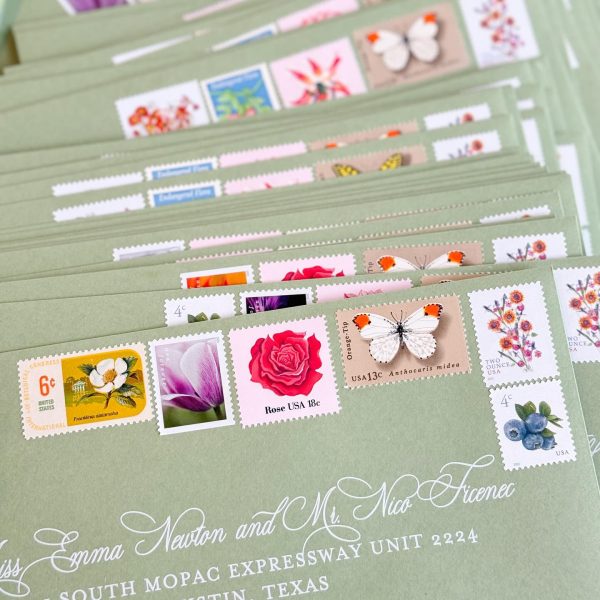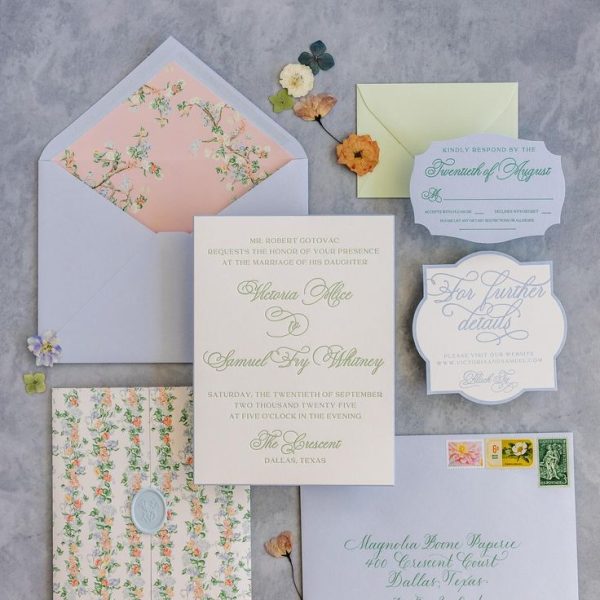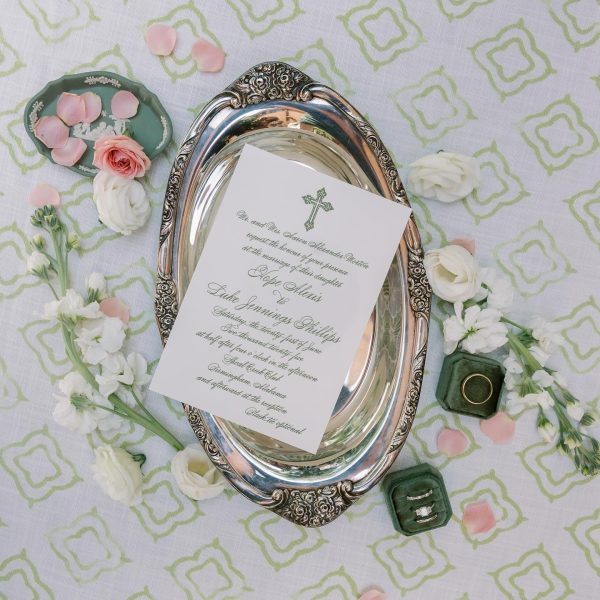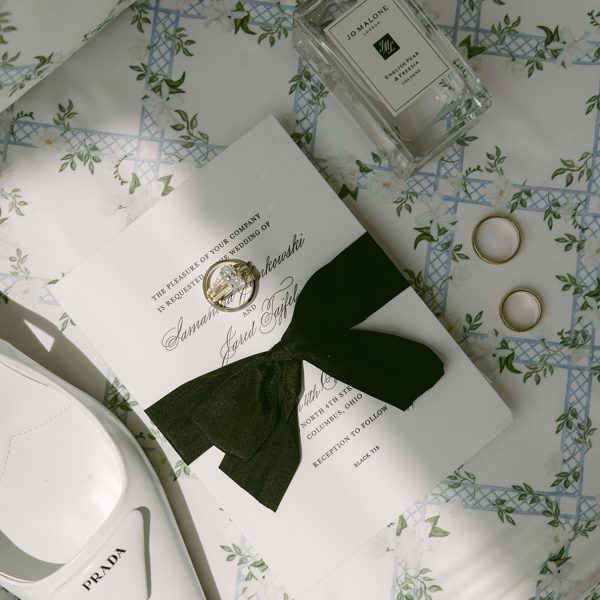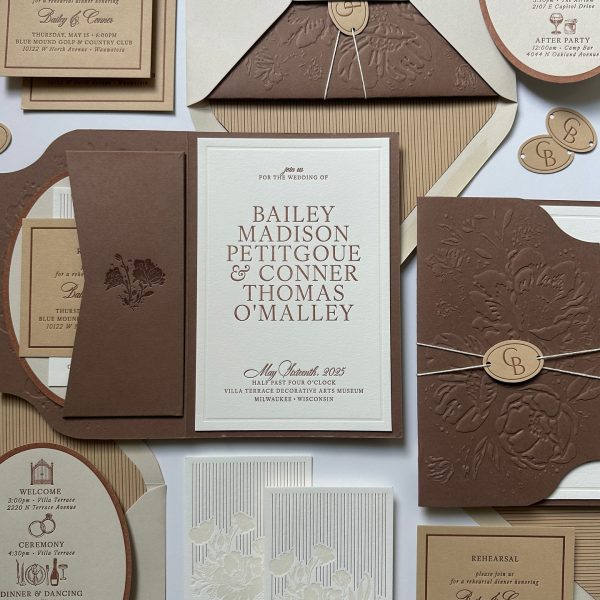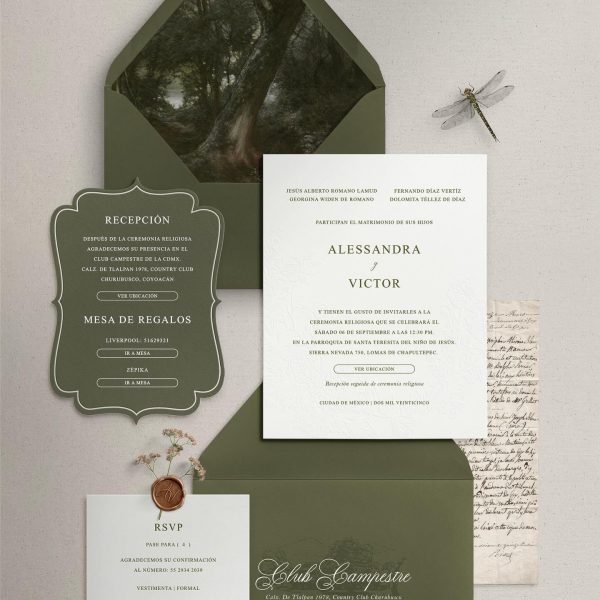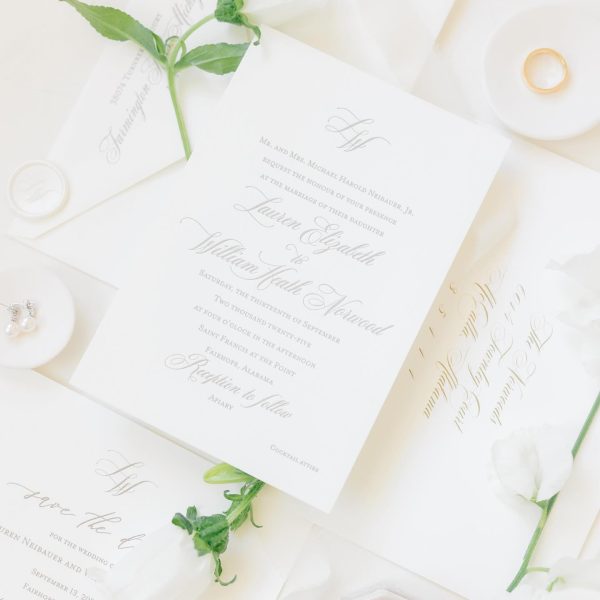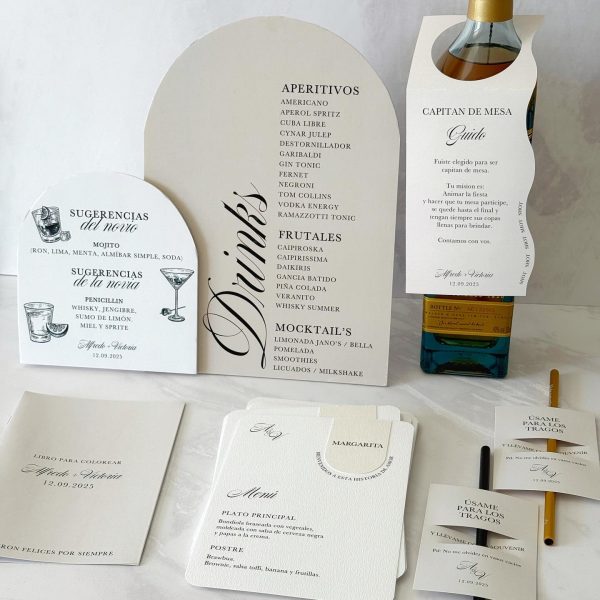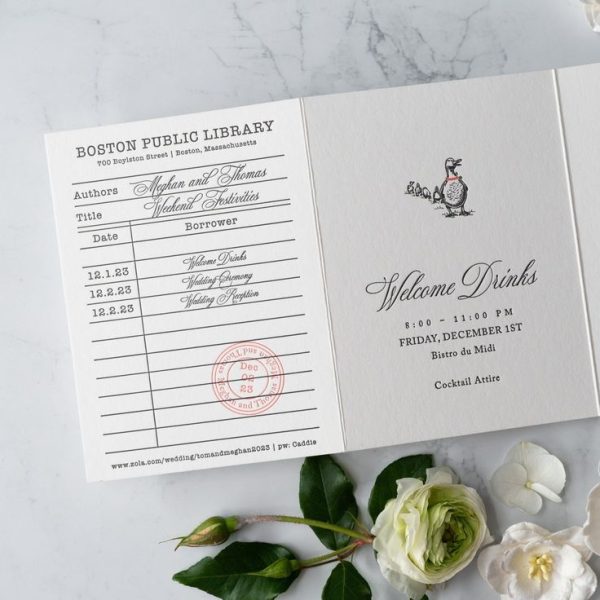
How to Identify Fonts from Wedding InvitationsTrying to figure out what font was used in a wedding invitation? You’re not alone — it’s one of the most common design questions.
Where to Find Elegant Calligraphy Fonts for DesignersLooking for elegant, romantic script fonts to use in wedding designs, logos, or stationery? TheFont.info is the shortcut you’ve been searching for. Instead of browsing thousands of fonts blindly on marketplaces, you can explore our gallery of carefully selected real-world designs — each one tagged with the exact font it uses and a link to download or purchase it. Our focus is on stylish, high-quality calligraphy and script fonts — especially those used in the wedding industry. Whether you’re creating invitations, signage, or branding, you’ll find typefaces that are proven to work beautifully in print and digital design.
Tips for Choosing the Best Script Fonts for Your ProjectNot every script font works for every design — even the most beautiful ones can fail if used incorrectly. That’s why we go beyond inspiration — we show you fonts in real context, so you can see what works before making a choice. Some fonts look perfect in short names or monograms, but may be hard to read in long phrases. Others might shine in large print but get lost in small sizes or digital use. Key things to consider: Readability: Make sure the font is legible at the size you need, especially for names, dates, and important info.
Personality: Match the tone of the font with the tone of the event — romantic, formal, rustic, modern, etc.
Balance: Use script fonts for emphasis, but pair them with simpler serif or sans-serif fonts for body text.
Context: Check how the font behaves with different letter combinations (ligatures, swashes, alternates).Our gallery lets you preview these things instantly by showing how fonts are used in real wedding invitations, signage, and more.
How to Download or Purchase Fonts You DiscoverEvery font featured on TheFont.info comes with a direct and verified referral link to download or purchase — no guessing, no dead ends, no random font matchers. - When you find a design you love, simply check the font listed below the image. We always provide:
- The exact font name
- A trusted source (e.g. the original designer, Creative Market, MyFonts, or a free legal download site)
The correct license information (so you know if it’s OK to use for personal, commercial, or client work)
Submit Your Design and Help the CommunityHave a design you’re proud of? Share it — and help others discover the fonts behind the magic. When you upload a wedding invitation, signage, or stationery design and tag the fonts you used, you’re not just showcasing your work — you’re contributing to a growing library of real, searchable font examples. This platform exists because designers like you take the time to share. Each new post: - Saves someone hours of font searching